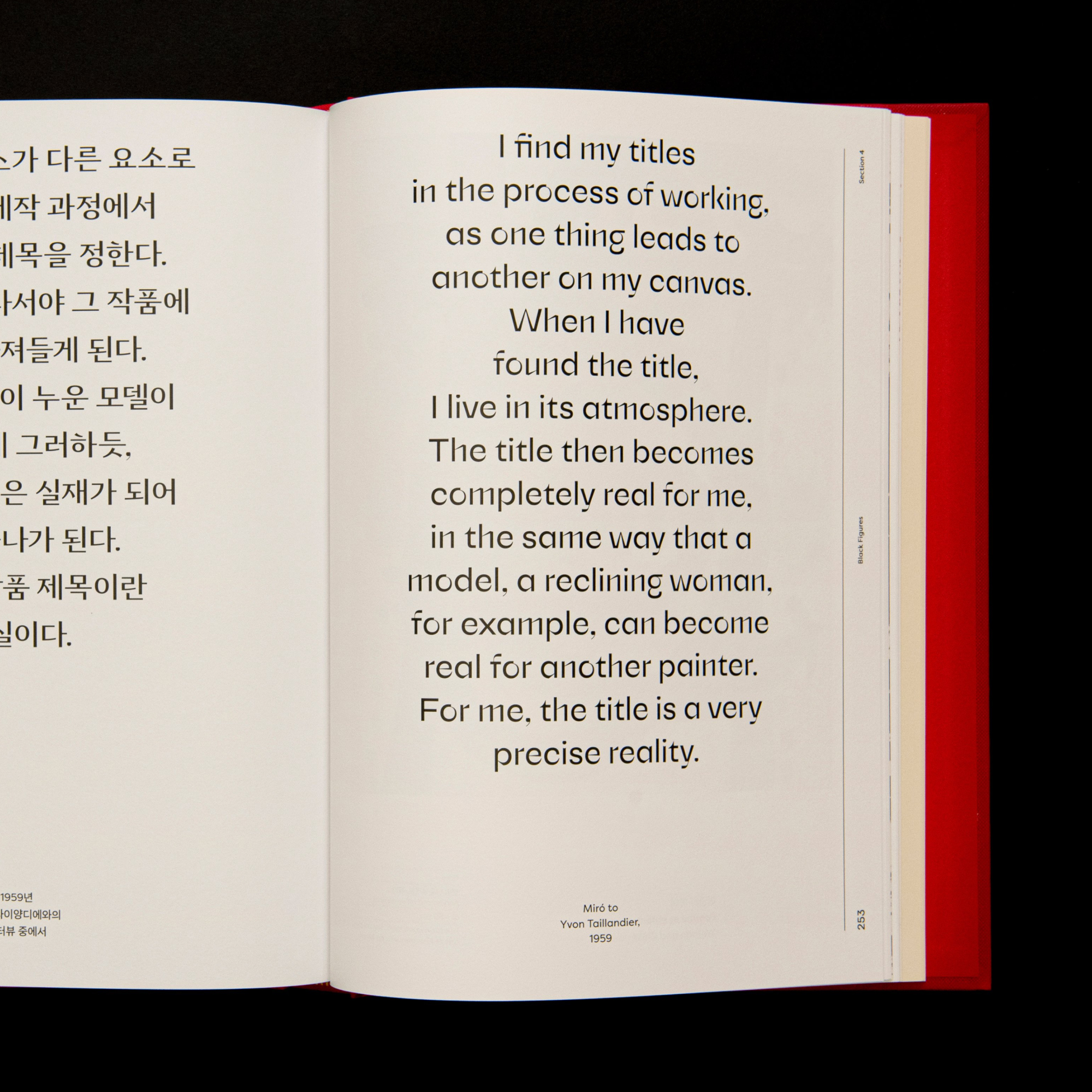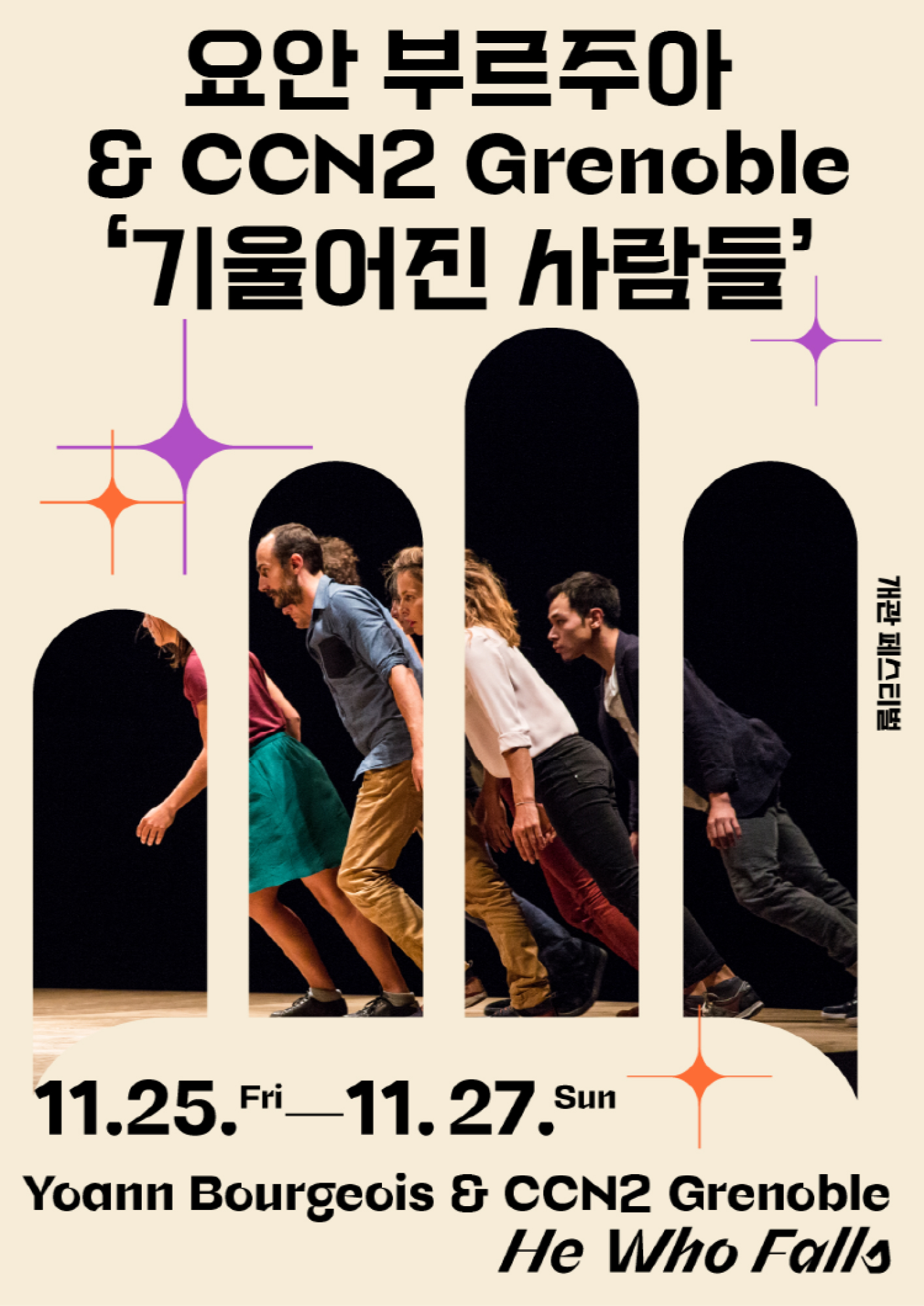
At its essence, Ortank explores the confines of geometric shapes. Its goal is to ally the radically simple with some classical influence, coming from the lineale grotesque style. The typeface offers a set of letters which are readable in large paragraph format and other kinds of dense content. Its unique shapes (such as the ‘n’ and ‘u’) maintain legibility on a small scale without causing discomfort. The moment of magic occurs when using the display weight, where we have embraced a digitally radical approach: We have taken Ortank’s extreme sharpness and applied it in a unique way for each of member of the type family. Ortank also makes a strong statement with italics, displaying a dynamic and strongly slanted approach. Our vision harks back to ‘what italics used to be’—in other words, we felt that Ortank italic could embrace a different design, with its own quality. Instead of simply slanting the upright version, we decided to take a more independent approach—a tactic which we have employed successfully with several of our font families.
We conceive typefaces with two very different approaches. Our first approach is achieved by digging into history. We then mix these sources and our own sketches into new shapes. We make those live between time and cultural expressions. The second one consists of creating a product with clear end usages in mind. Whether we create fonts for motion, interactive design, or print, we explore the full potential in each of these design worlds. Our goal is to bring a broad aspect to what typography is in the 21st century. Indeed, as the digital world becomes more mobile, branding passes more and more through type design. This includes specifically the all aspect of custom typefaces and fonts. In addition to the experience of designing typefaces and to partner with clients to create brands, we have a multicultural approach focused on Hangeul, the Korean script, and the Latin one, which alphabet is used for languages such as English, French, Spanish or Polish to name a few. We hope that our website gives you a glimpse of a future where type design fully embraces digital. Of course, this is just the beginning, and we are just two explorers finding our way in a new world of type, deeply passionate about creating a new type family. We believe that our website demonstrates the passion we have for our work, through typefaces, work in progress, and experimentation. Going forward, we will continue our prototyping processes, explore more languages and graphic territories, and transpose our new family of fonts into interfaces, layouts and visual universes. You can browse through the project here: lo-ol.design